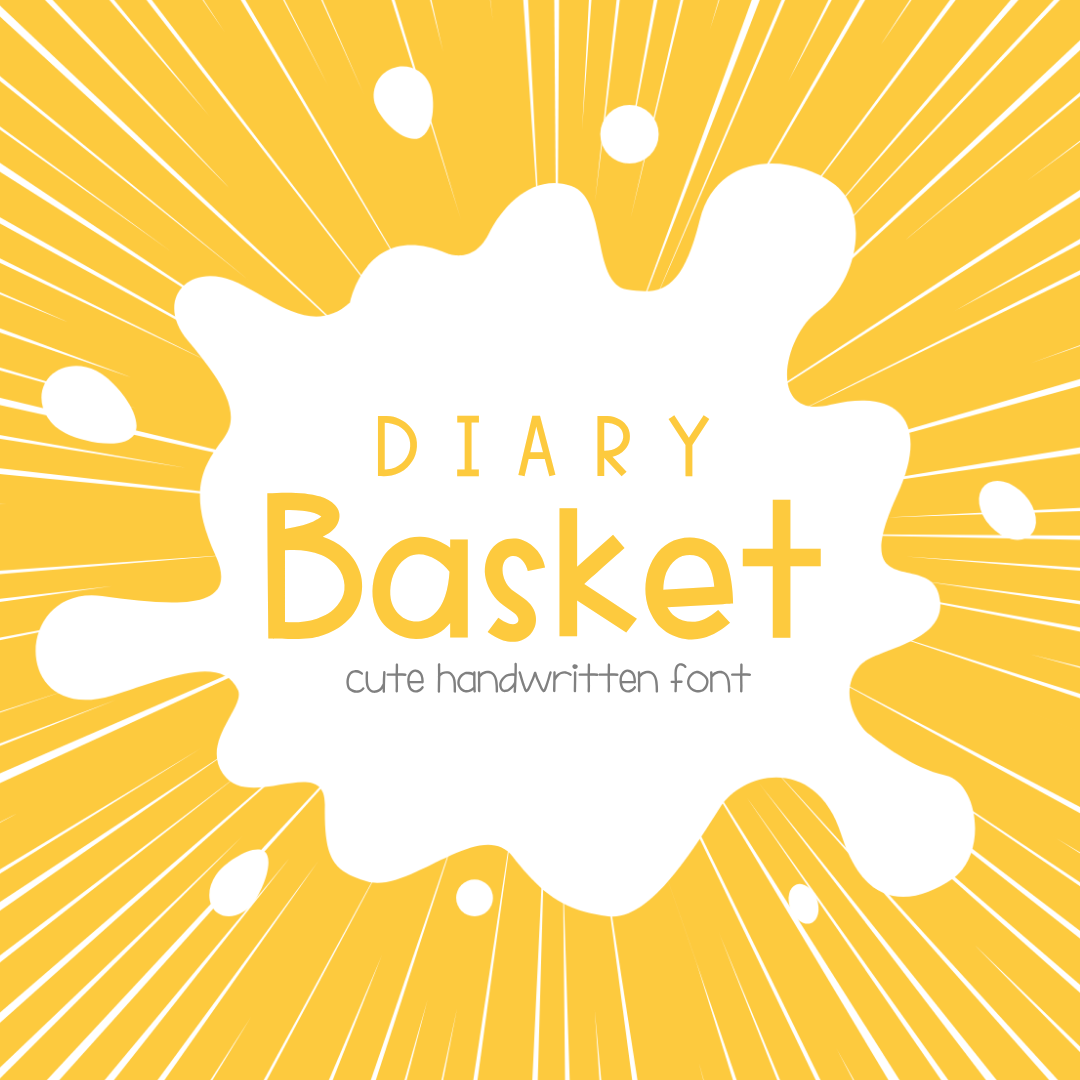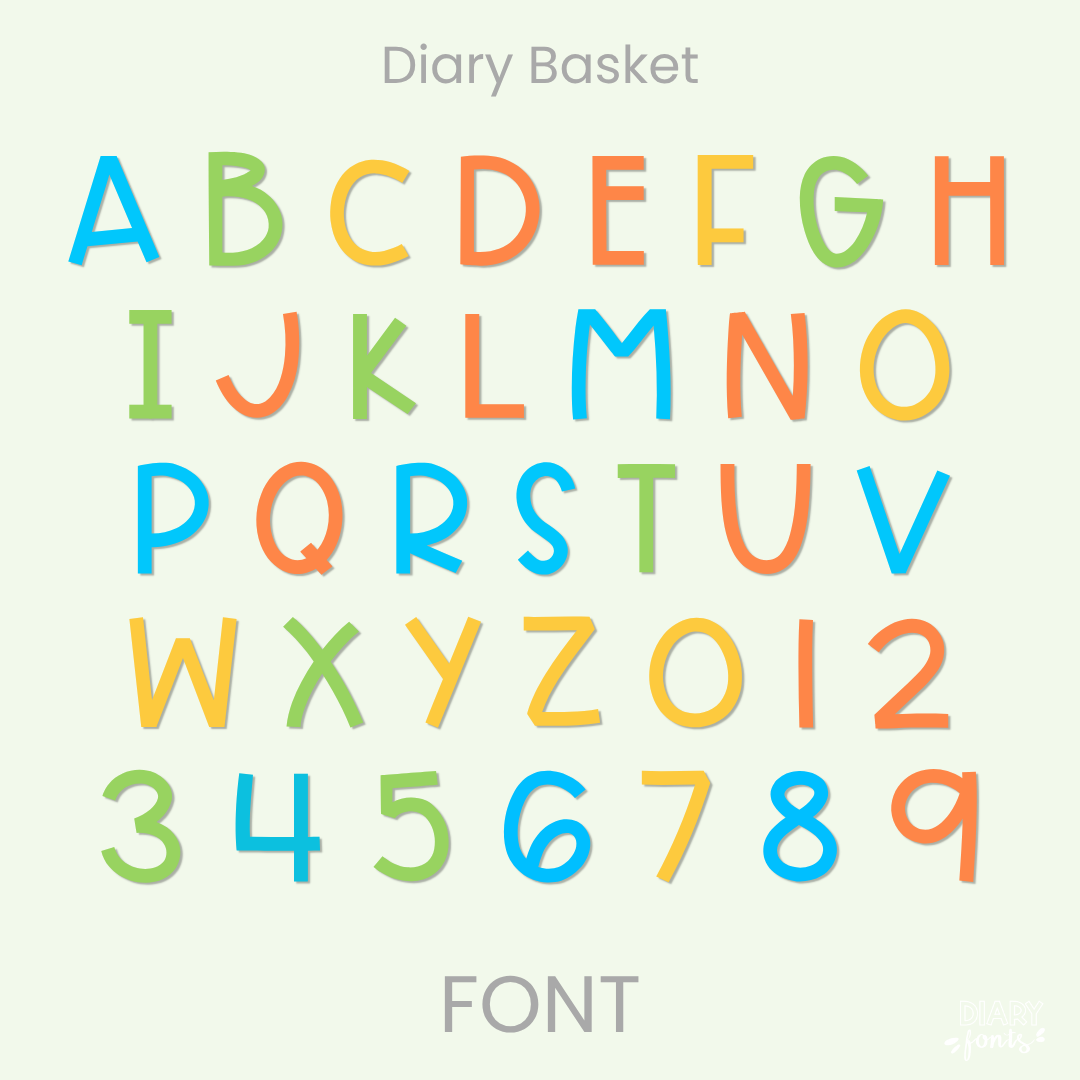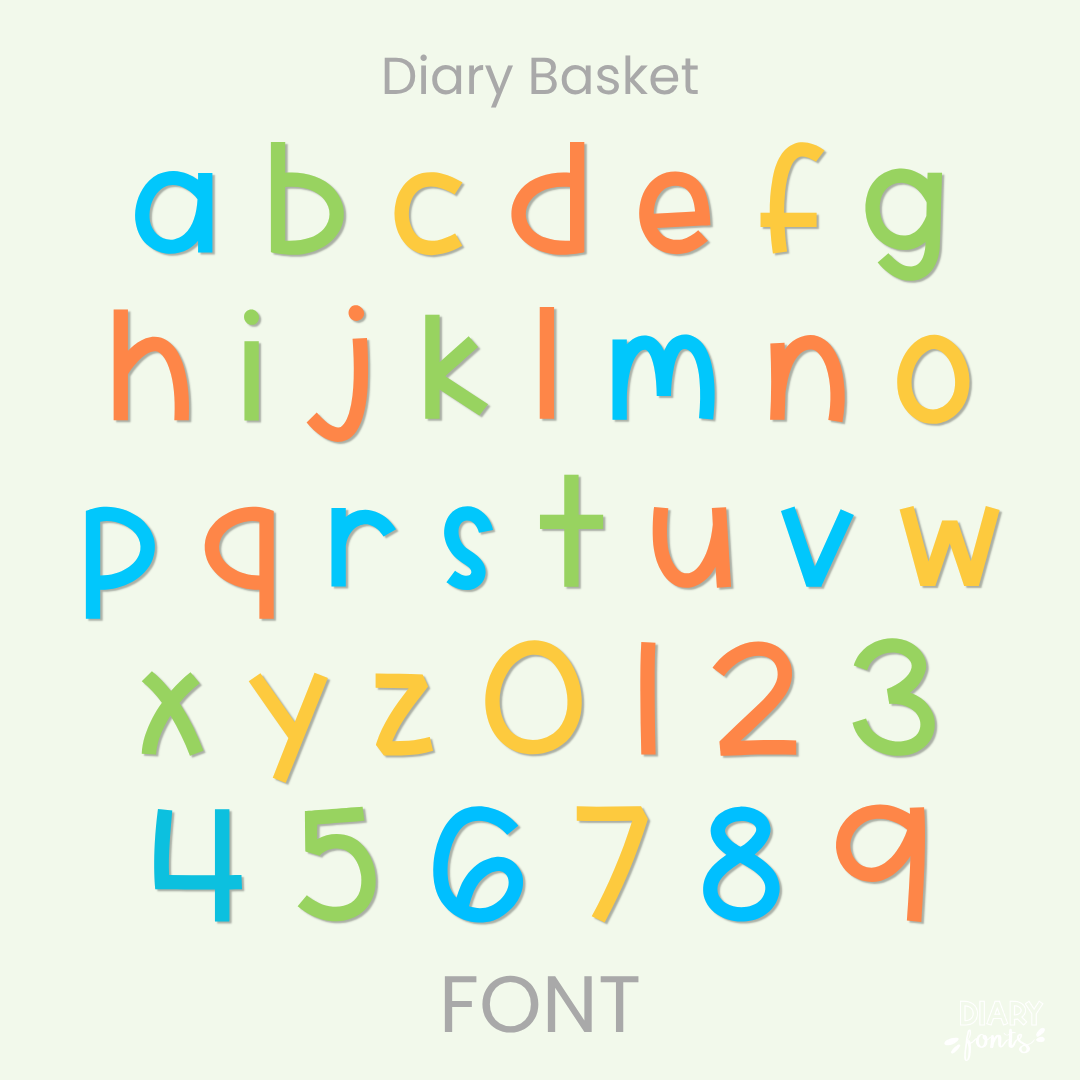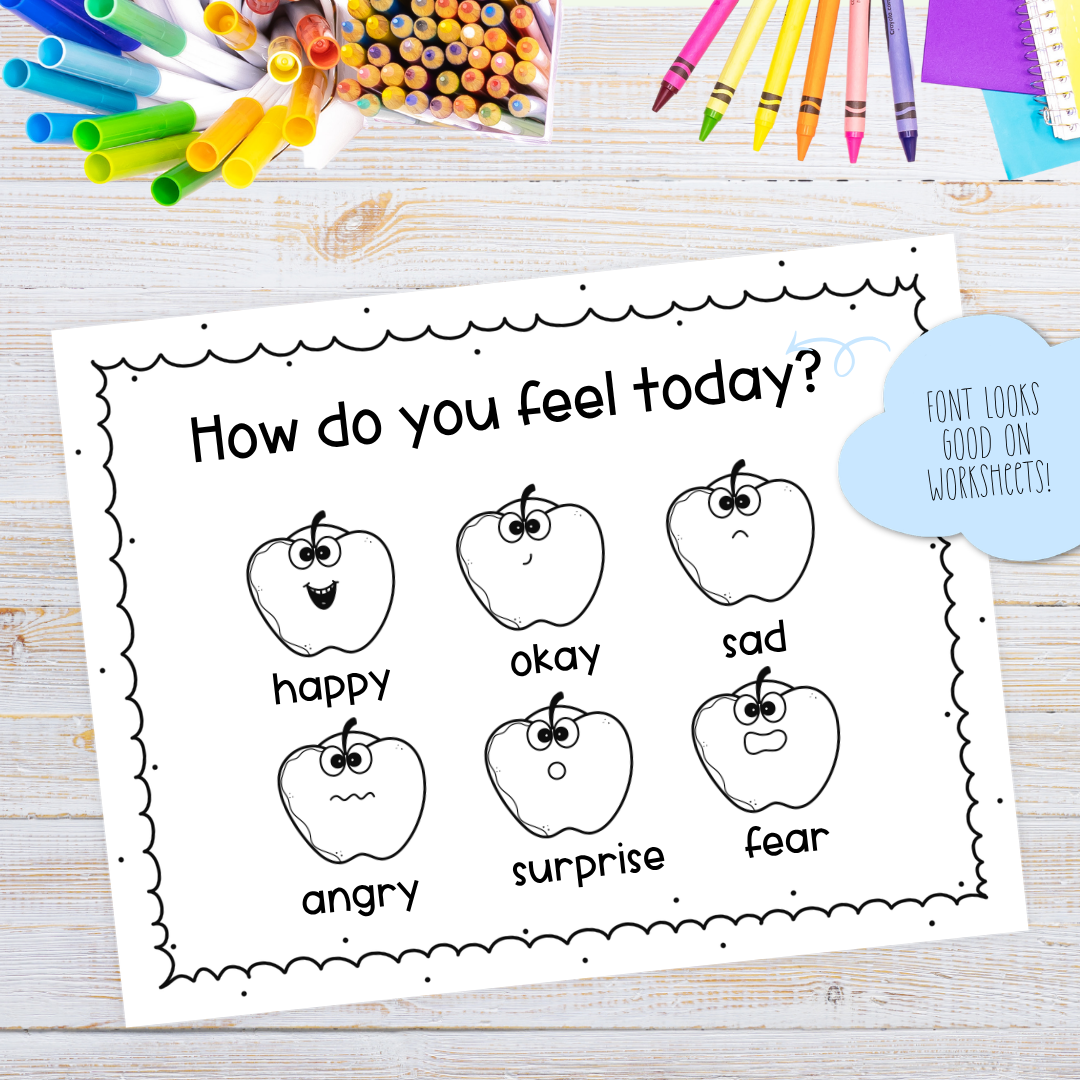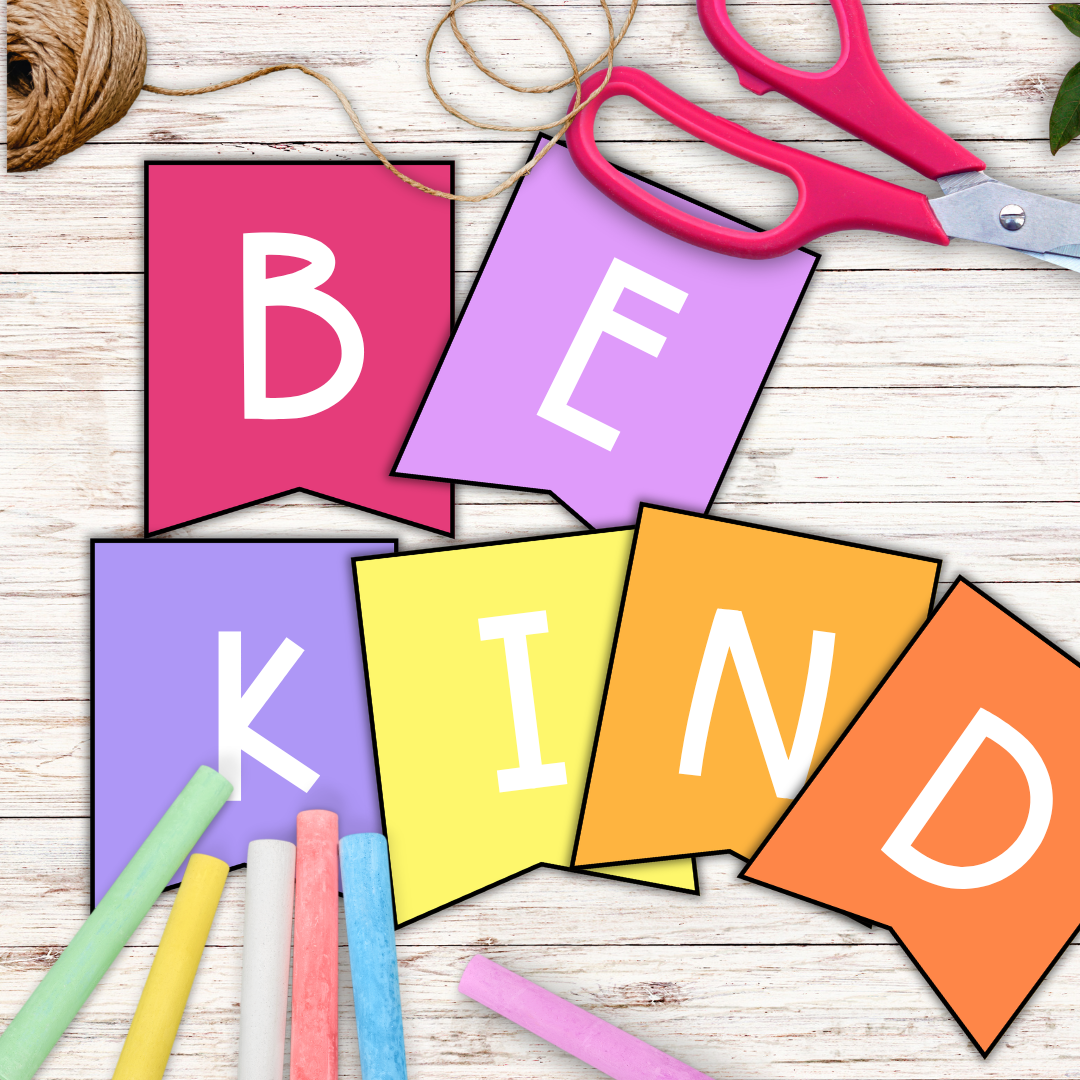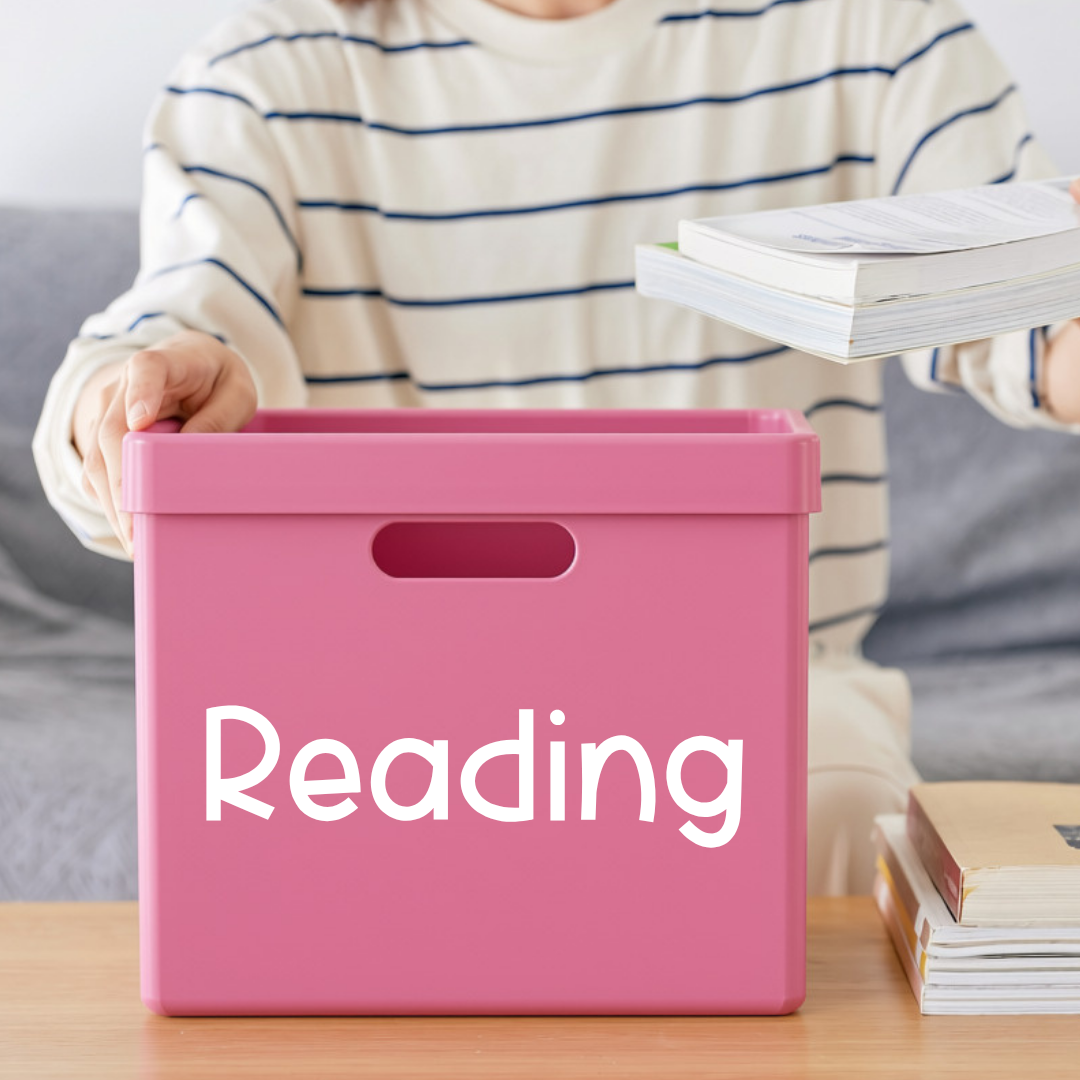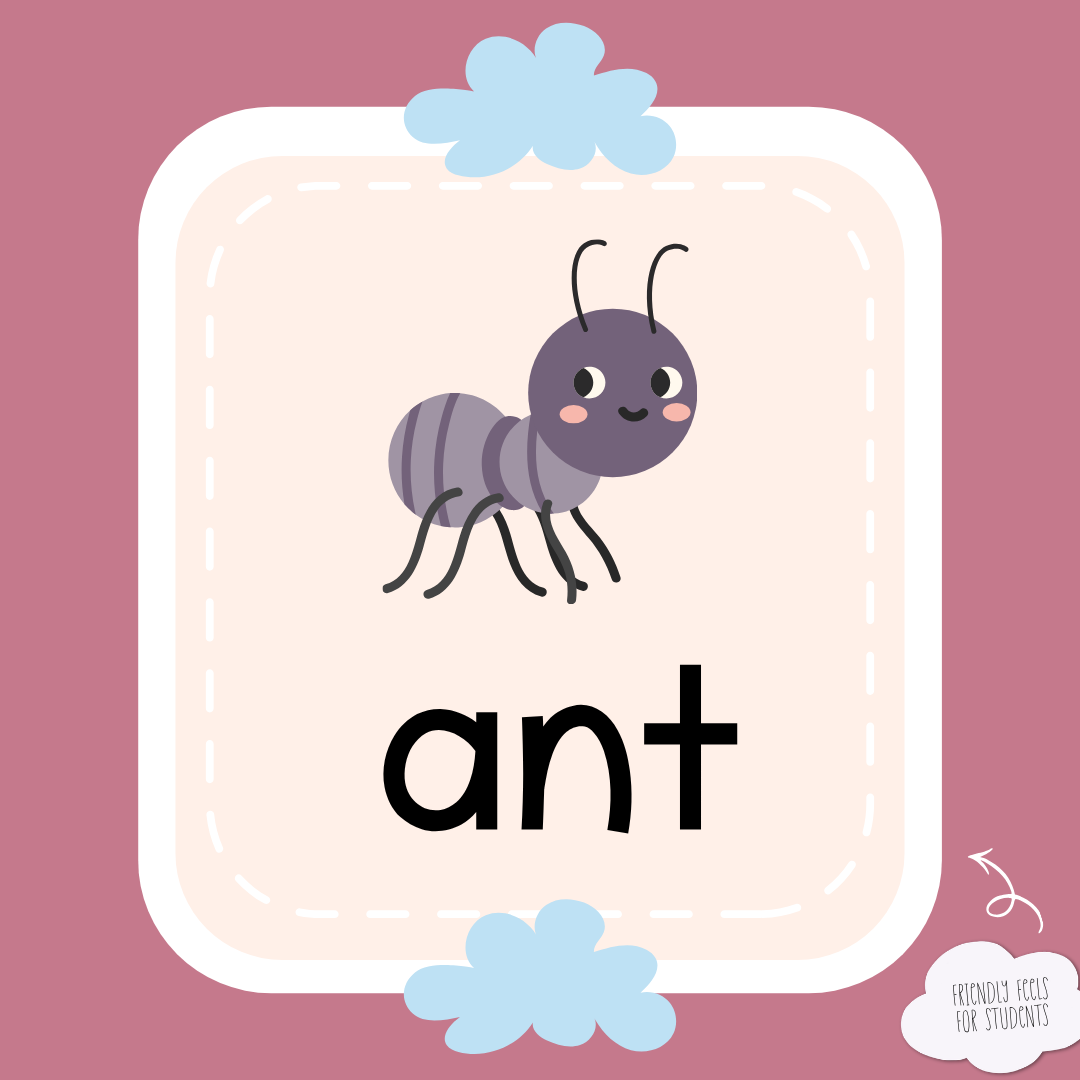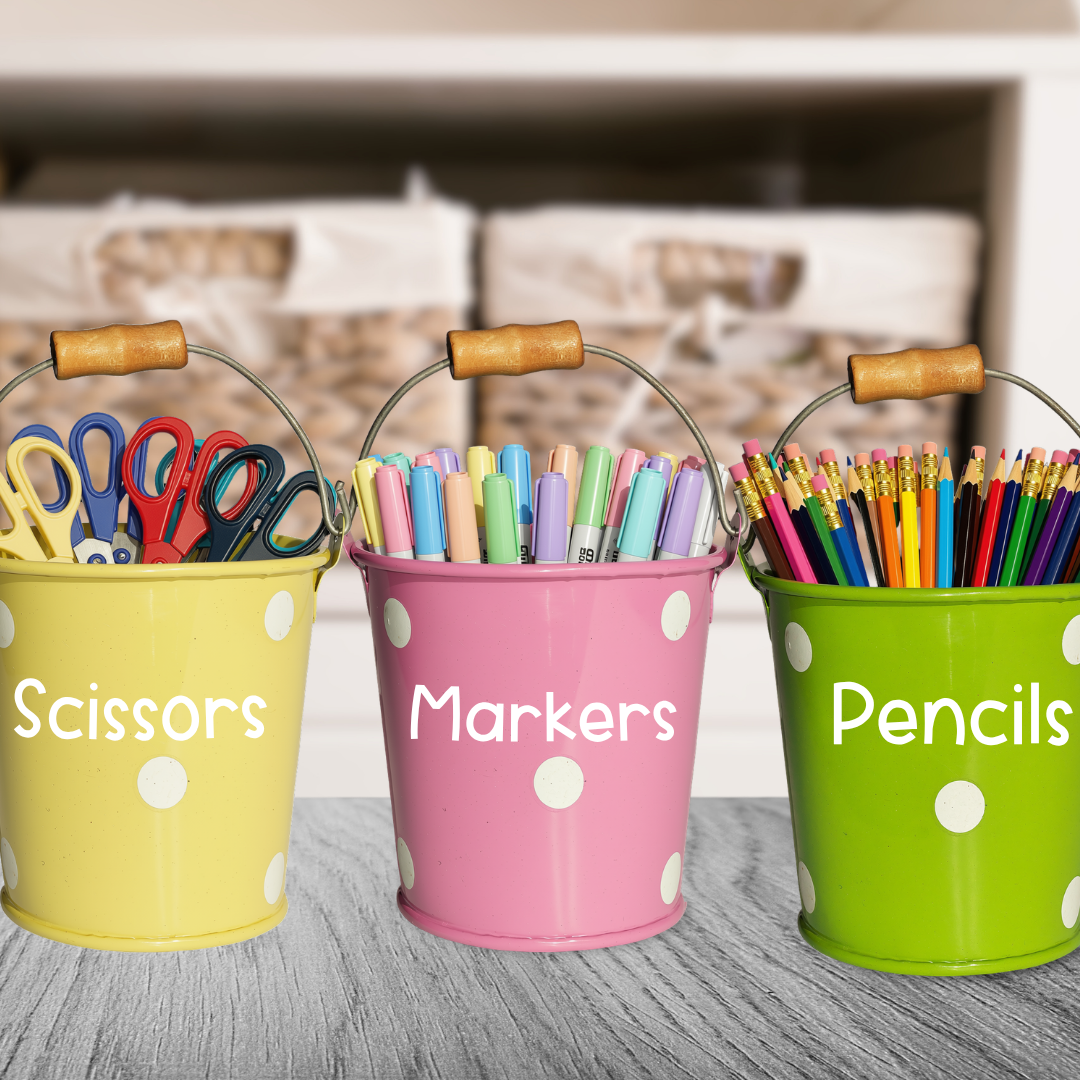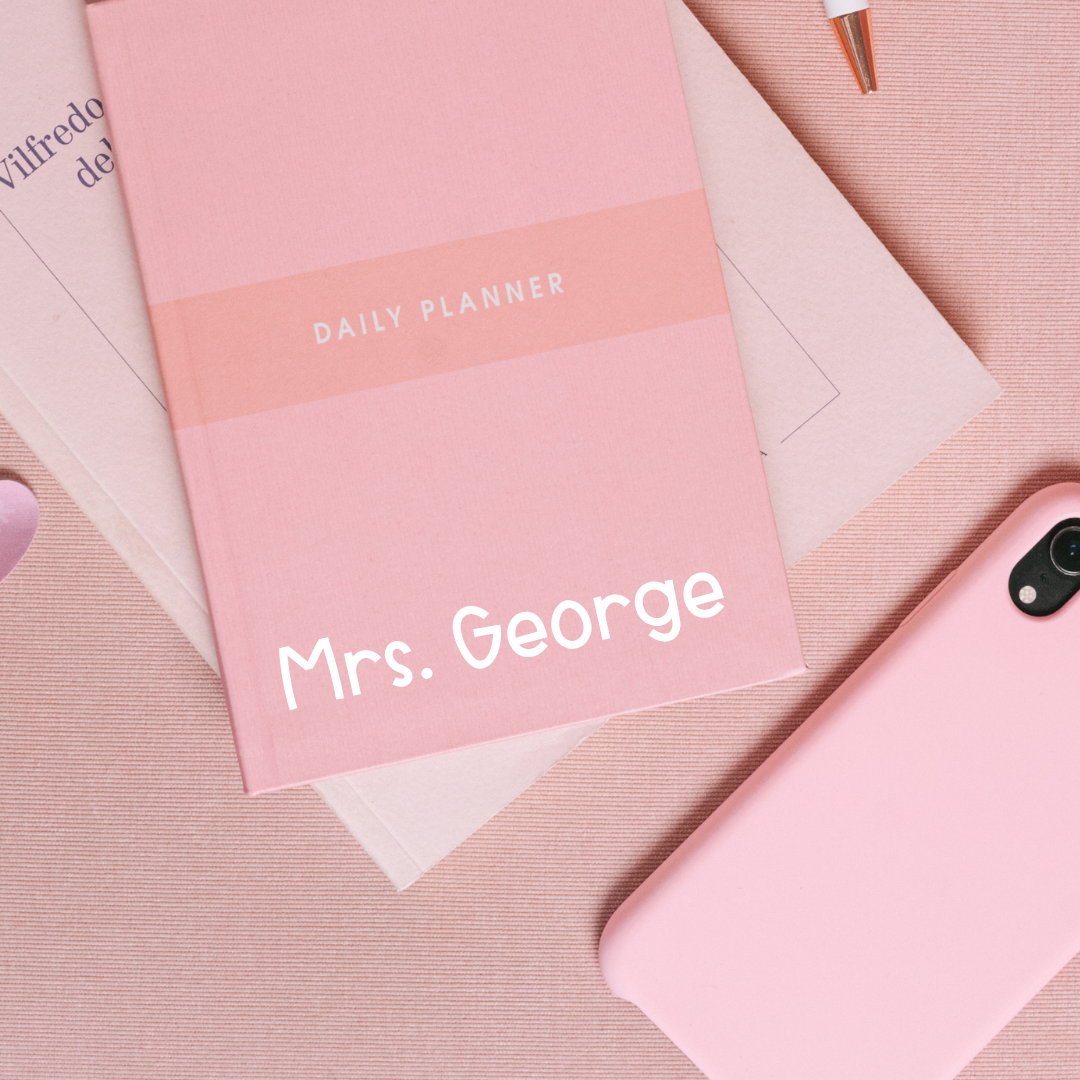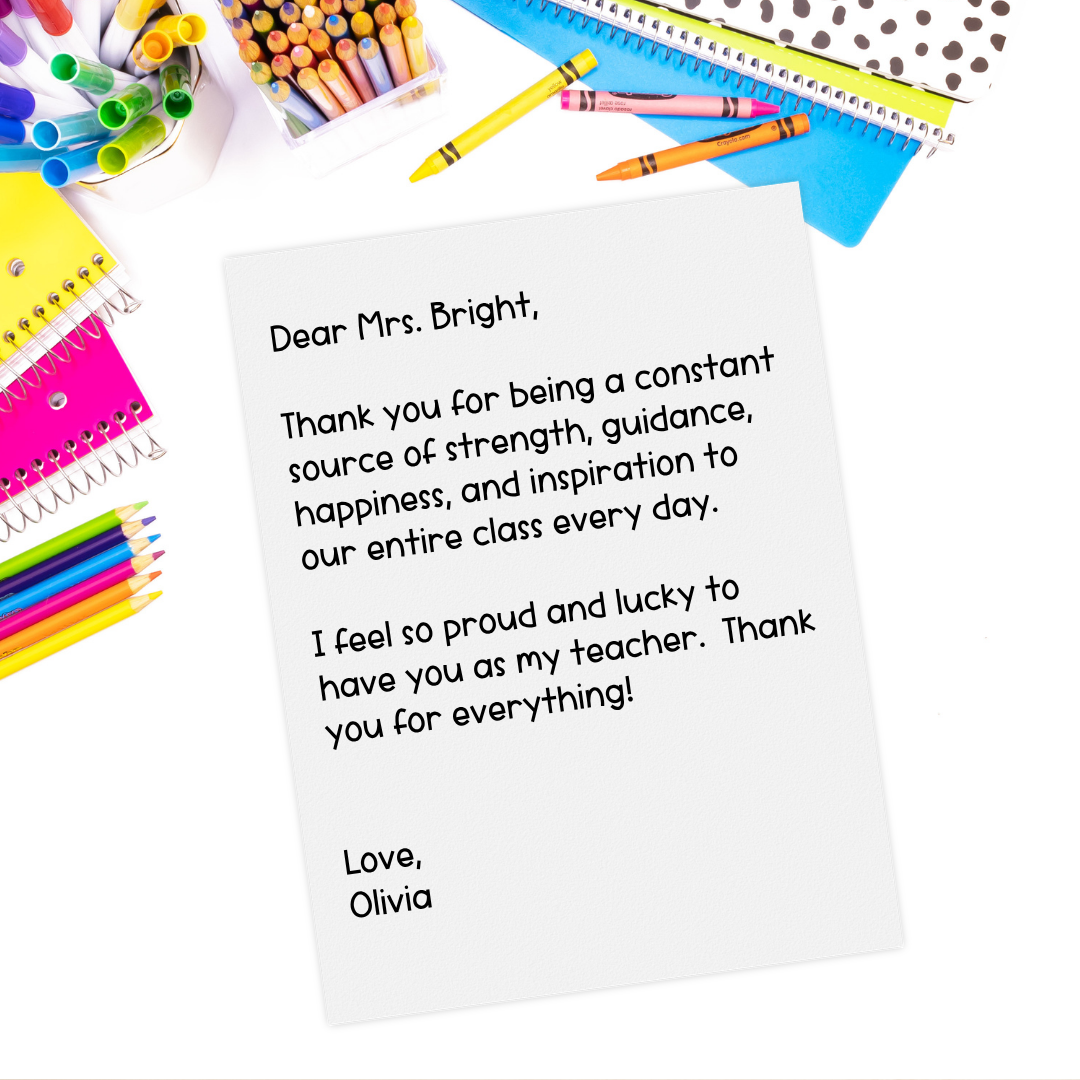
Diary Basket Font – Neat Handwritten Font
Diary Basket is that ultra-clean, perfectly uniform primary font and playful handwritten teacher typeface you need to bring a neat, cheerful, and highly legible look to your daily classroom resources and morning slides.
If you’ve been looking for a reliable, go-to primary print font that has all the organic charm of natural handwriting while keeping your document layouts looking incredibly structured, Diary Basket is about to become your new absolute favorite design staple. This delightful typeface features smooth, consistent line weights and friendly, open letterforms that sit perfectly flat along the baseline. Because these hand-drawn characters are nice and neat with plenty of generous breathing room between them, it completely eliminates background visual noise—giving you an exceptionally clear worksheet typography choice that your students can track and read with absolute ease.
It is an absolute dream choice for typing up elementary reading comprehension printables, daily classroom storage labels, morning meeting presentations, printable flashcards, and sweet notes home to families. Inside the download, you’ll get a full set of neat uppercase and lowercase print letters, clean matching numbers, and multi-accent marks for complete multilingual support. It drops right into Canva, MS Office, or Adobe on your desktop, and pairs beautifully with Procreate and GoodNotes on your iPad. Whether you’re prepping weekly activities for your own classroom or designing a fresh new commercial-use product line for your online teacher shop, this versatile display print font adds a touch of confident style to your toolkit.